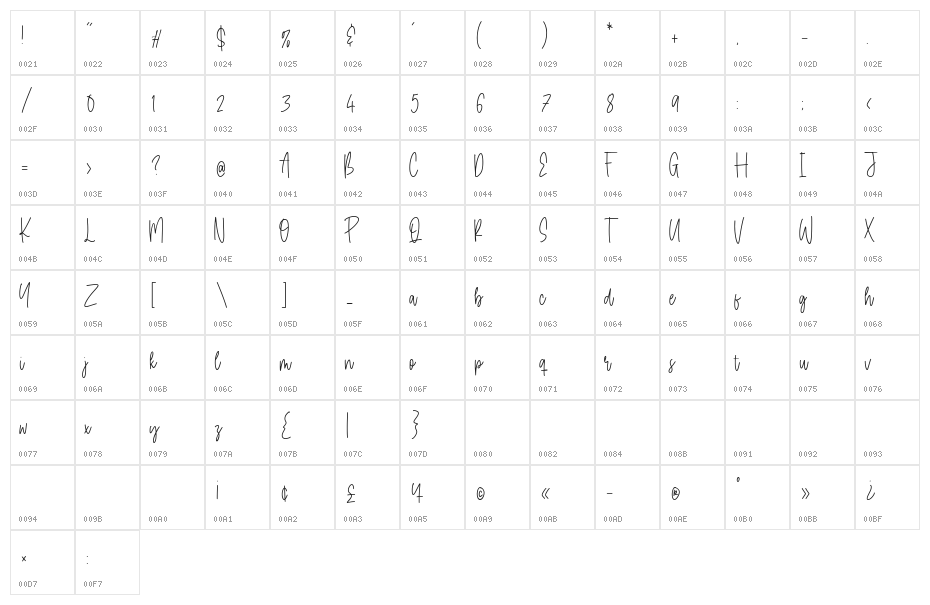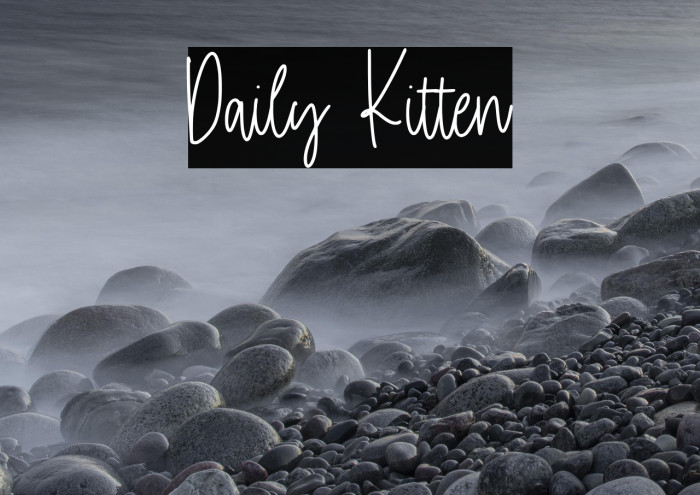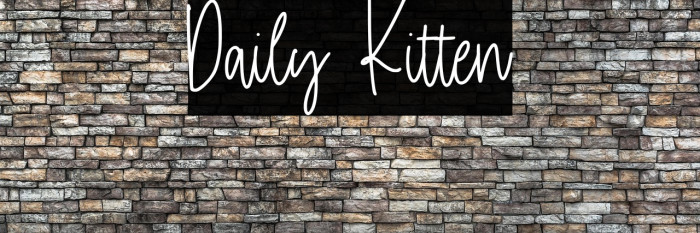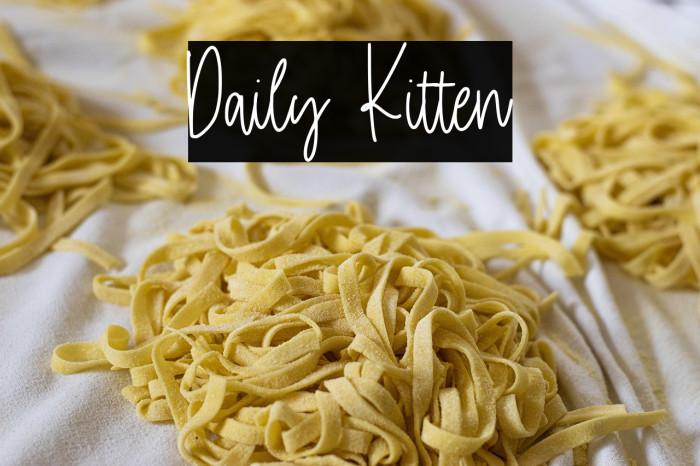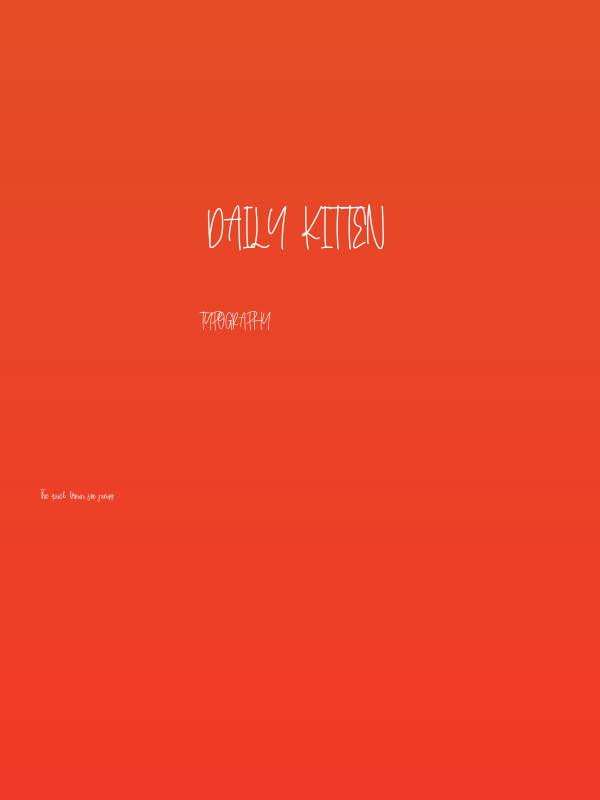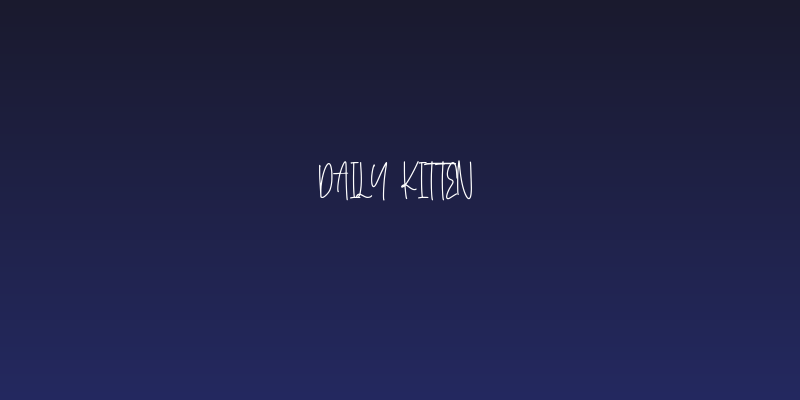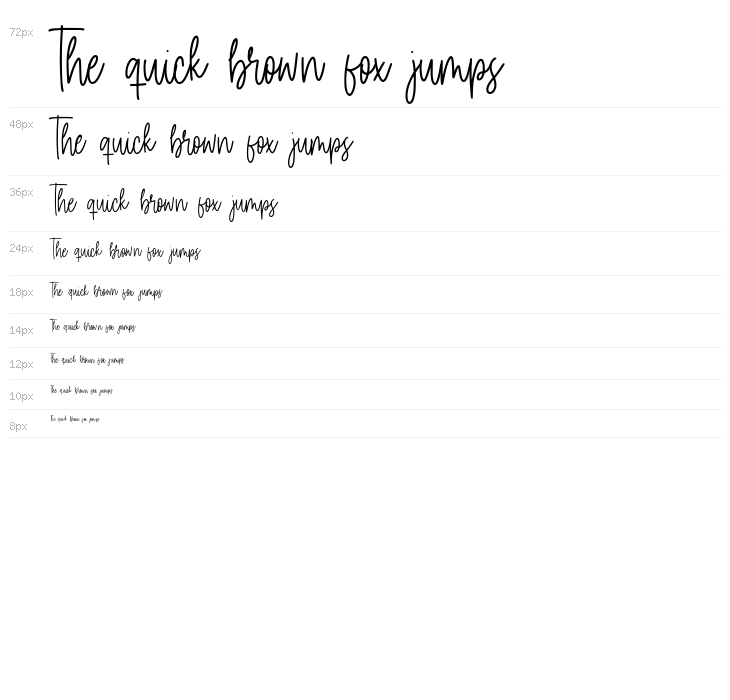
Daily Kitten Font
Daily Kitten Description
This font features a playful and casual handwritten style, characterized by its flowing and slightly irregular strokes. The uppercase letters are tall and narrow, with a whimsical flair that adds personality. The lowercase letters maintain a consistent style, with smooth curves and a relaxed appearance. Numbers are clear and easy to read, complementing the overall informal aesthetic. The special characters blend seamlessly with the alphabet, maintaining the same handwritten charm. This font is perfect for projects that require a personal touch, such as invitations, greeting cards, or social media graphics.
| Overall Style | Casual |
| Use Case | Headlines, Logos, Invitations |
| Proposed Projects | Ideal for invitations, greeting cards, social media graphics, and personal branding. |